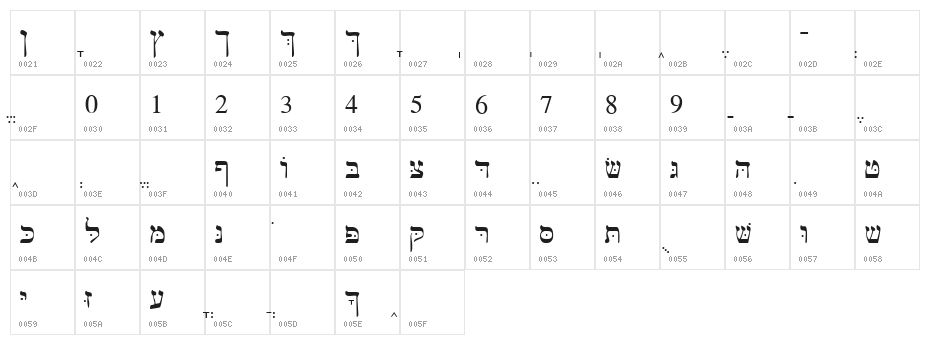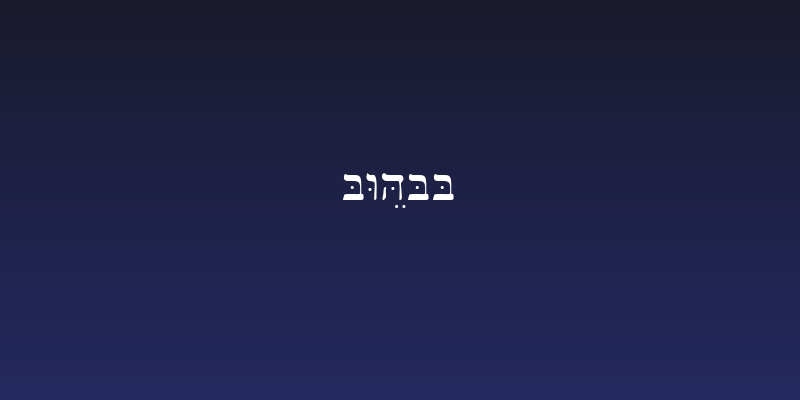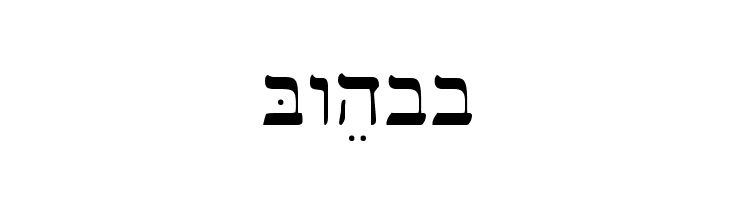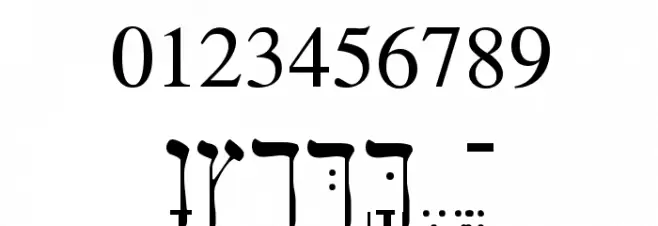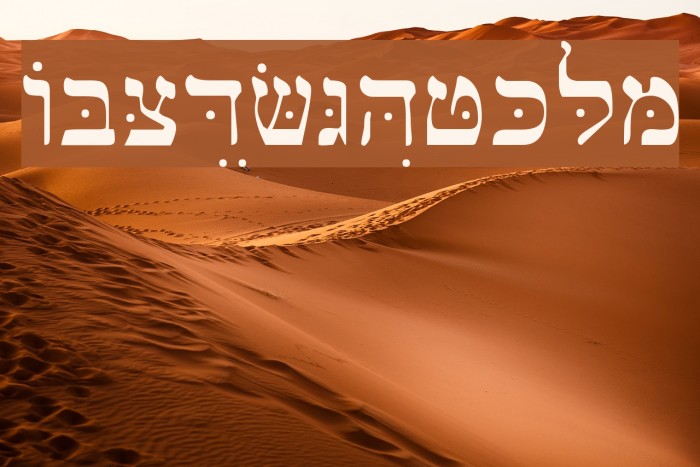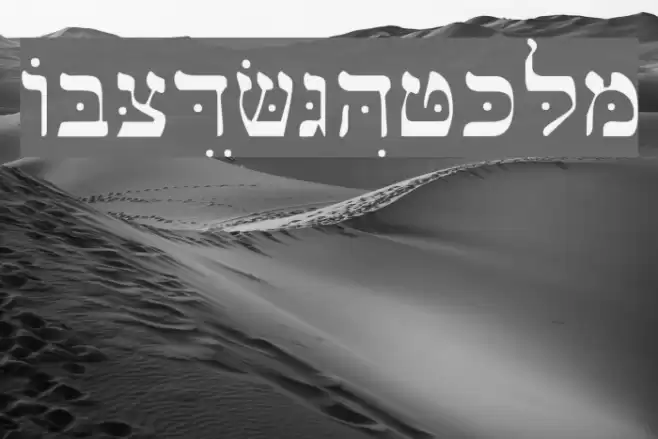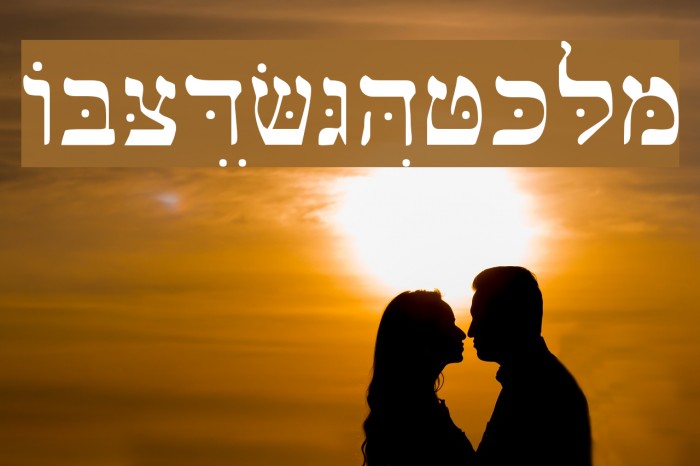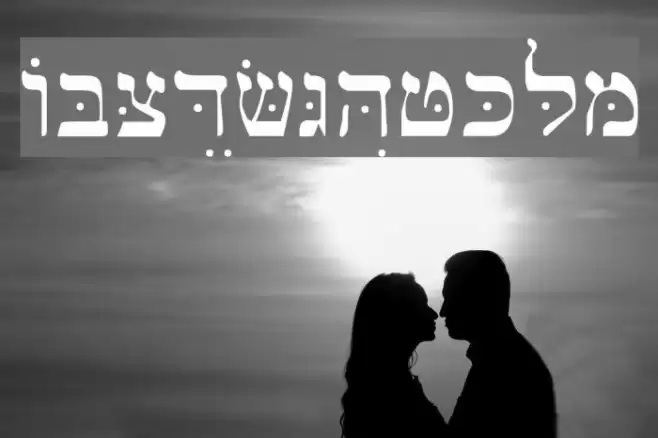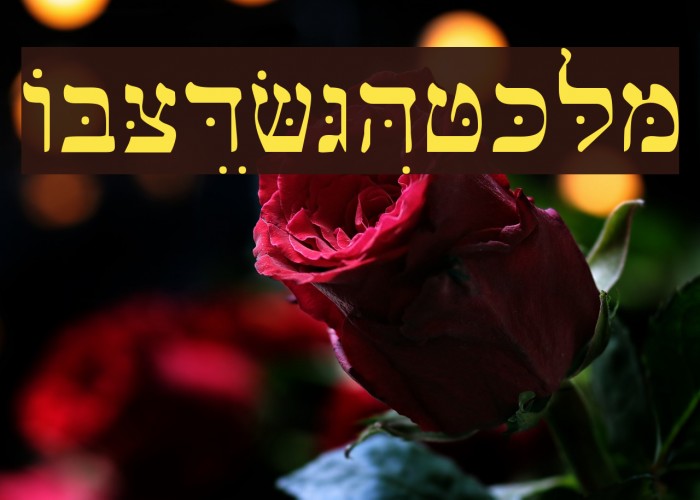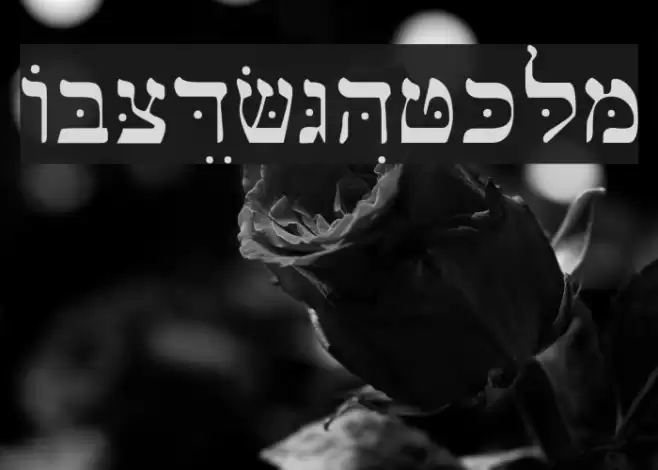
Bwhebb Font
| Caz de utilizare | Headlines, Religious texts, Cultural publications |
| Proiecte propuse | Ideal for religious texts, cultural publications, and formal documents requiring a traditional Hebrew script. |